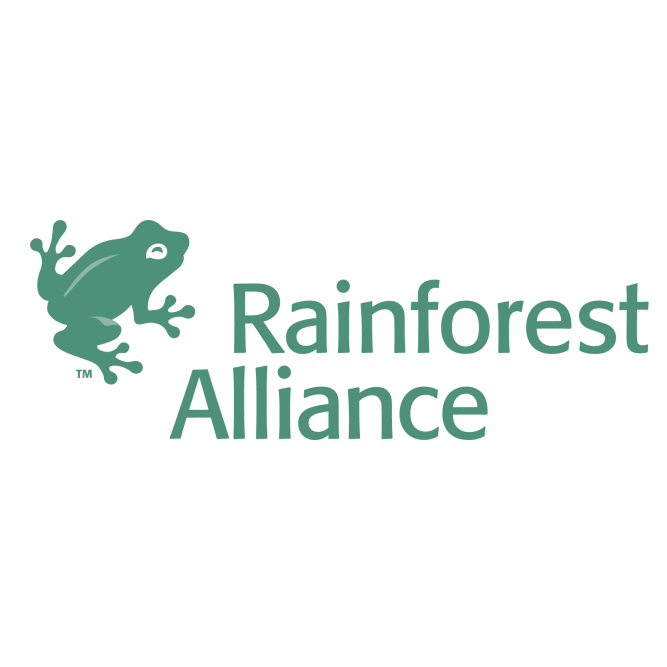
Rainforest Alliance Font
Rainforest Alliance uses the Formata Regular font, designed by German typographer Bernd Möllenstädt in 1984. Formata stands out with its curved strokes and subtle details. You can check out more details about the font family here.